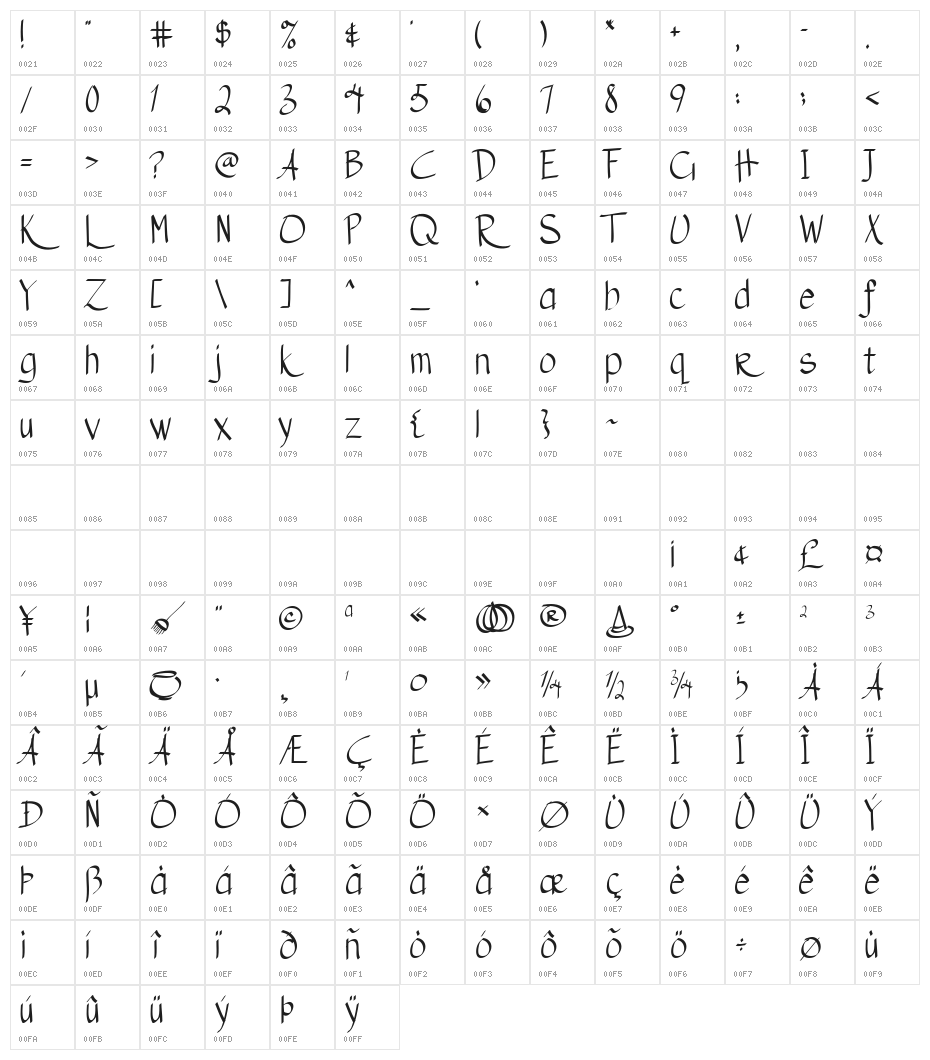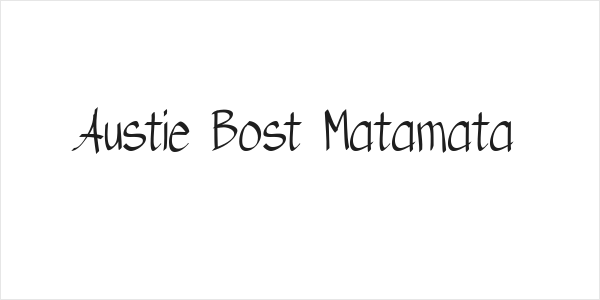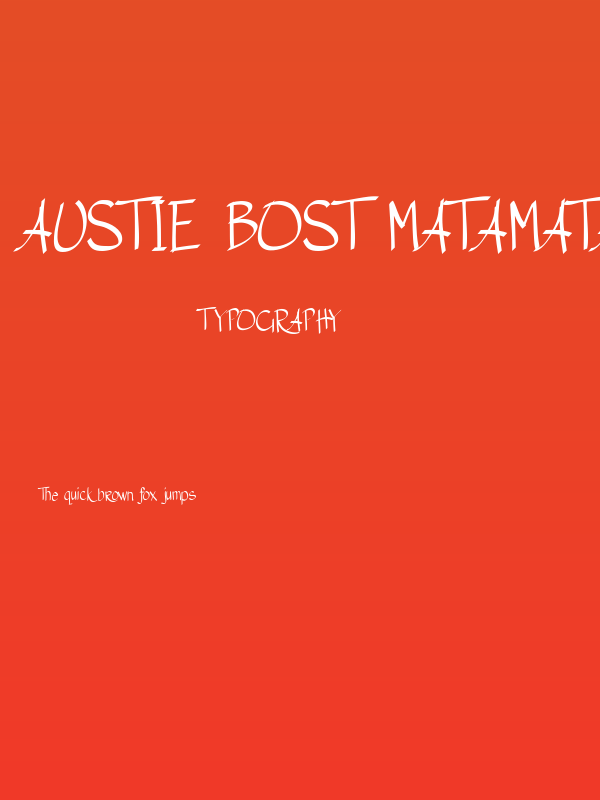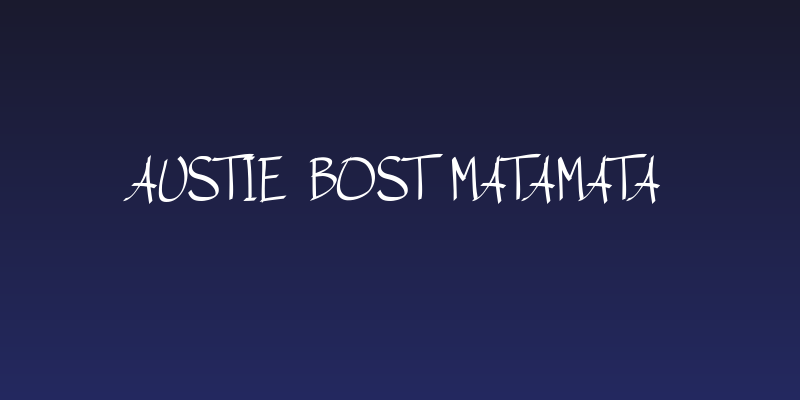
Austie Bost Matamata Font
Austie Bost Matamata Description
This font features a playful and whimsical design, characterized by its flowing, hand-drawn style. The letters have a unique, artistic flair with varying stroke widths that give it a dynamic and lively appearance. The uppercase letters are tall and slightly narrow, while the lowercase letters maintain a consistent, rounded form. The numerals and special characters follow the same playful aesthetic, making the font suitable for creative and informal designs. Its distinctive style is perfect for projects that require a touch of personality and creativity.
| Proposed Projects | Ideal for greeting cards, children's books, playful branding, and creative posters. |